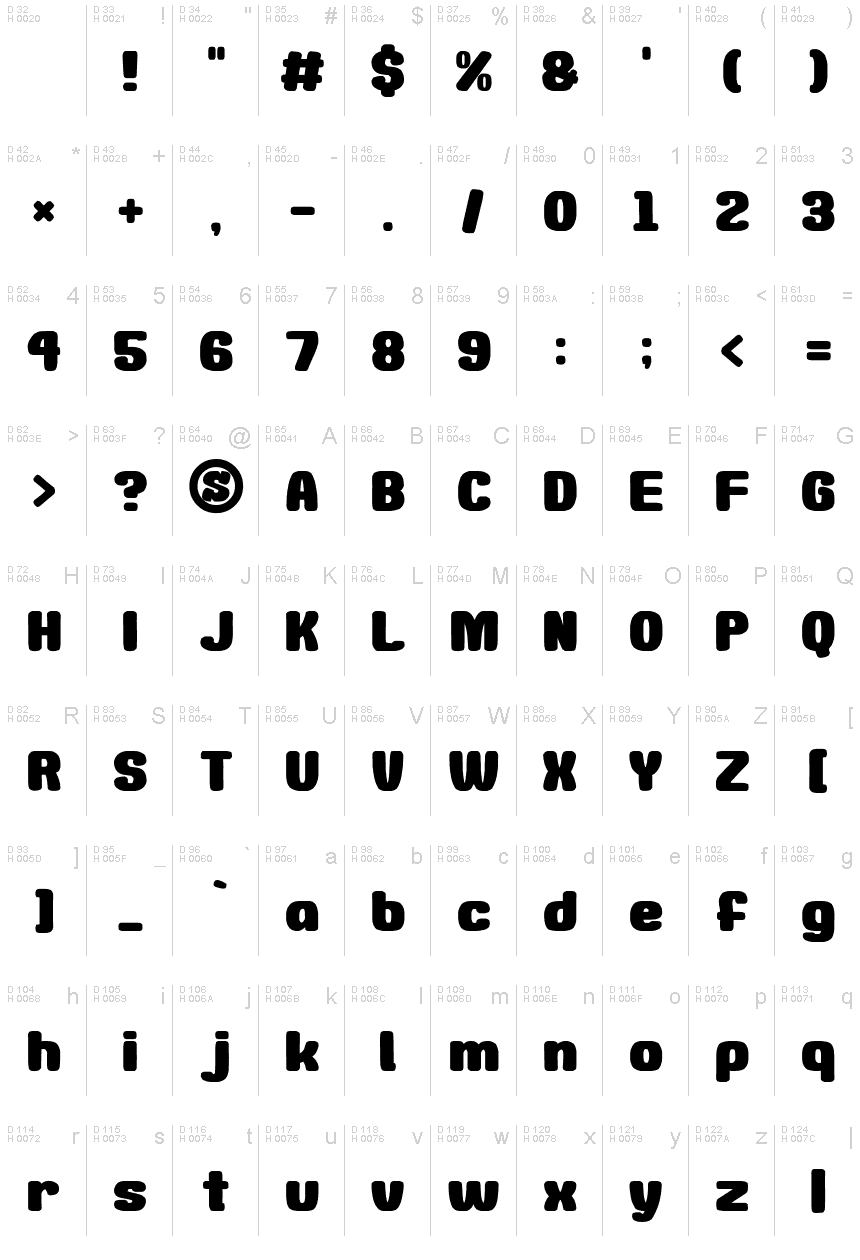
Shiratama Dango
Shiratama Dango, a captivating display font meticulously crafted by Goma Shin, brings a unique touch to any creative project. With its extra-bold weight and semi-expanded width, this font exudes confidence and commands attention. Perfect for eye-catching headlines, striking logos, or impactful posters, Shiratama Dango adds a touch of boldness to brand identities and advertising campaigns. Its versatility extends to editorial designs, packaging labels, and even website headers. Let your imagination run wild as you explore the endless possibilities this remarkable font offers. Embrace the power of Shiratama Dango and elevate your projects to new heights!